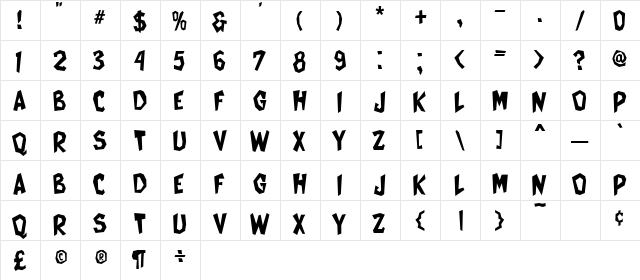
Cat Women Regular
Design Context for Cat Women Typeface
Cat Women is a composed and adaptable typeface that performs quietly and consistently across a wide range of design contexts.